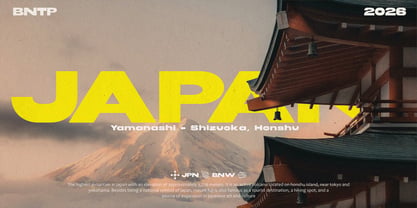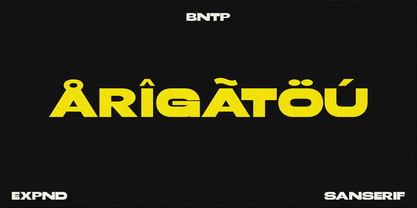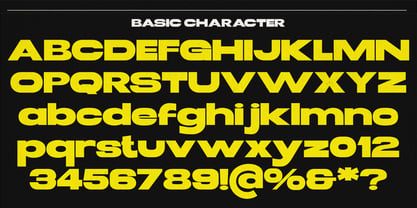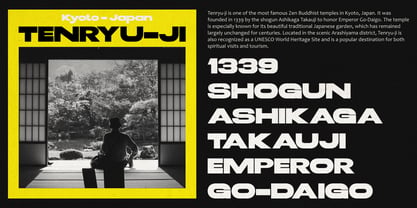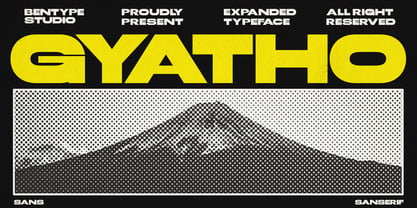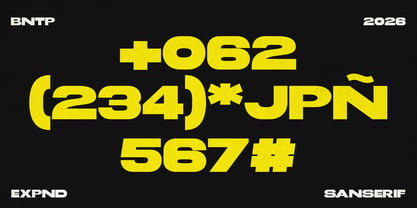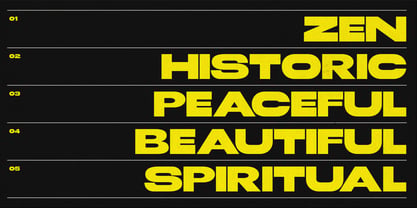
Gyatho
by Bentype
The Gyatho Font Family was designed by Muhammad Farkhan and published by Bentype. Gyatho contains 1 styles. More about this family
Gyatho - Expanded Sans built to make every headline stand out with power and confidence. Perfect for sports branding, posters, streetwear, gaming, and bold visual statements. Designed with strong geometric shapes and sharp character to deliver maximum impact.
Designers: Muhammad Farkhan
Foundry: Bentype